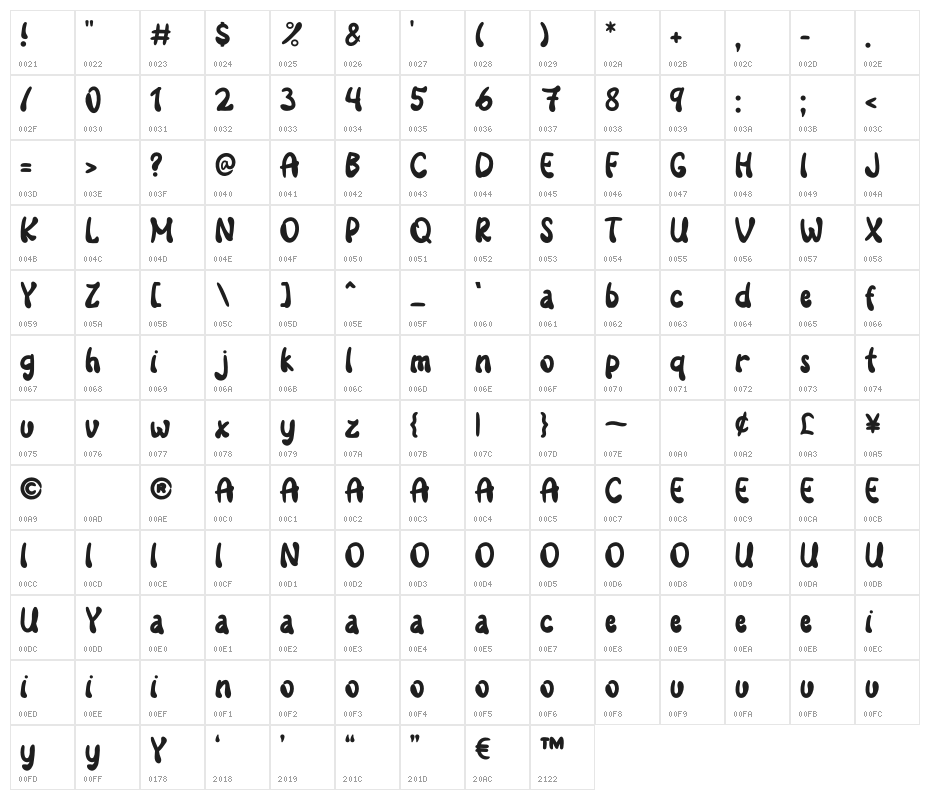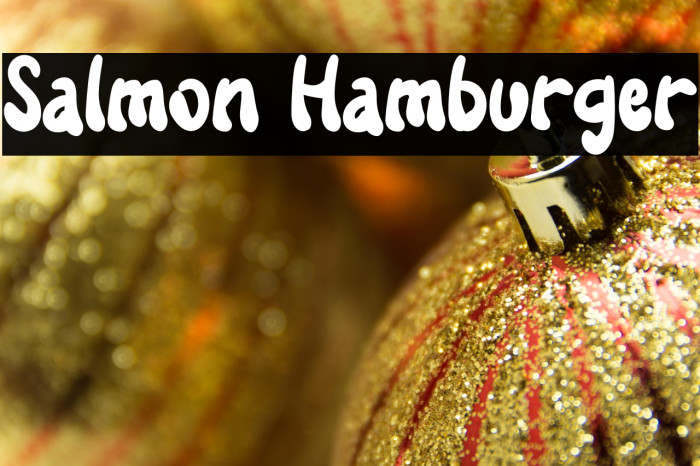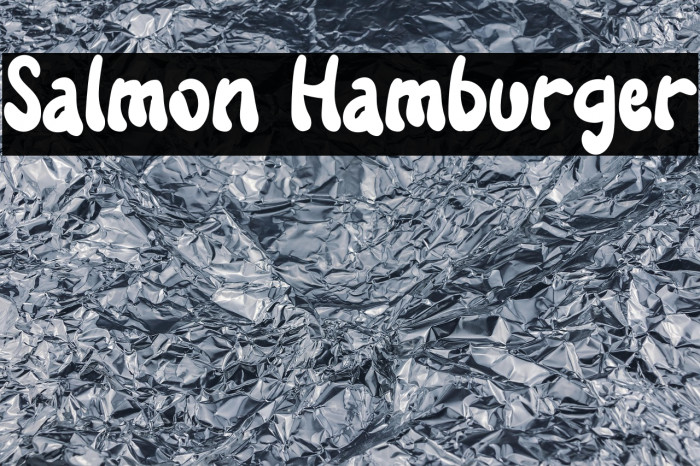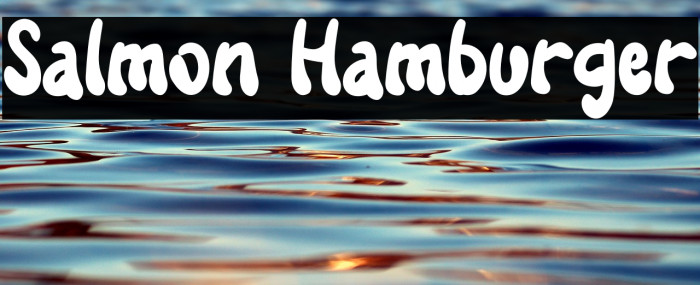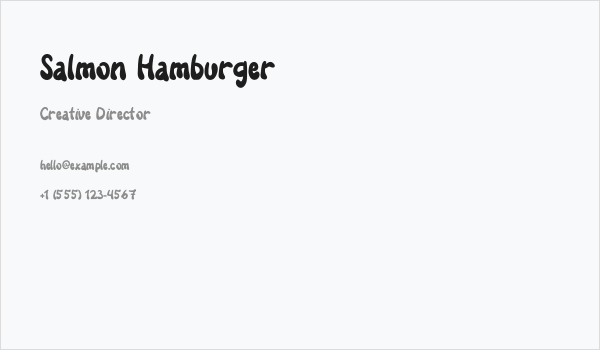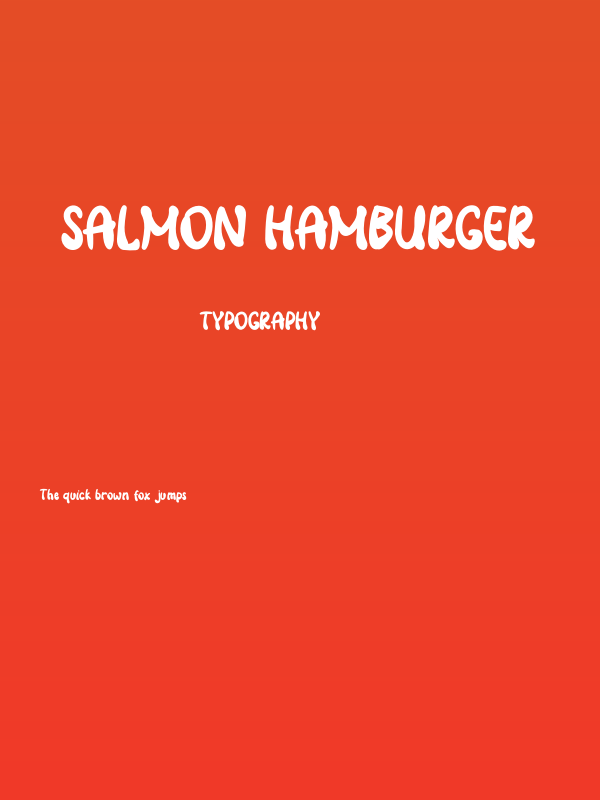
Salmon Hamburger Font
Salmon Hamburger Description
This playful and bold font features a handwritten style with thick, rounded strokes that create a friendly and approachable appearance. The characters are slightly irregular, adding a whimsical touch to the overall design. The uppercase and lowercase letters maintain a consistent weight, while the numerals and special characters blend seamlessly with the alphabet. The font's boldness ensures high visibility, making it suitable for eye-catching designs. Its organic flow and casual vibe make it ideal for projects that require a personal and informal touch.
| Proposed Projects | Ideal for children's books, playful branding, greeting cards, and casual event invitations. |